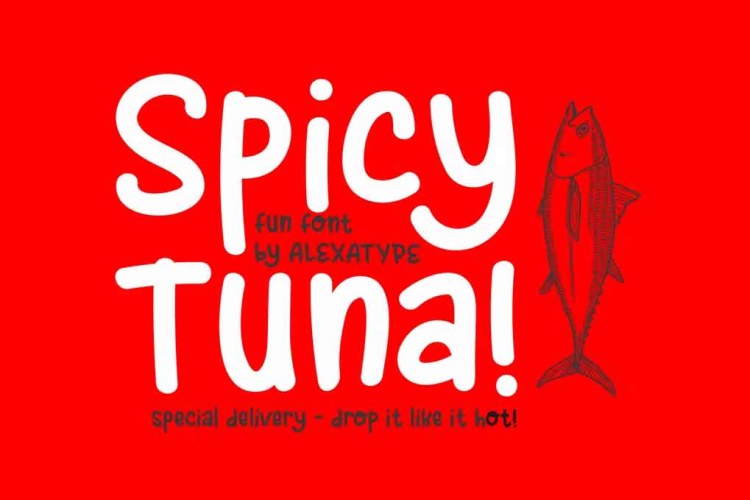
Spicy Tuna Font
Spicy Tuna – fun children font
Spicy Tuna, comes with rounded shape emphasizing the fun and friendliness they bring. Perfect for any fun project, schools, children related, or even a cafe and restaurant menu.
Where Spicy Tuna Font works best
A short phrase in Spicy Tuna Font carries warmth that a typeset sans cannot fake; keep the rest of the card plain.
Chalkboard-style headings in Spicy Tuna Font make a menu feel hand-made. Keep the dish descriptions in a simple face so prices stay readable.
One line of Spicy Tuna Font over a photo is enough; the script carries the tone and the caption does the work.
What kind of work does Spicy Tuna Font suit?
It sits in the Script And Handwritten group and reads as food, handwritten, kids, professional. That makes it a candidate wherever those qualities help: headings, packaging, social graphics and brand work. Set it at the size you plan to use before deciding.